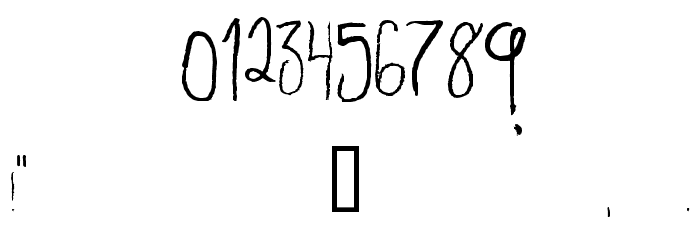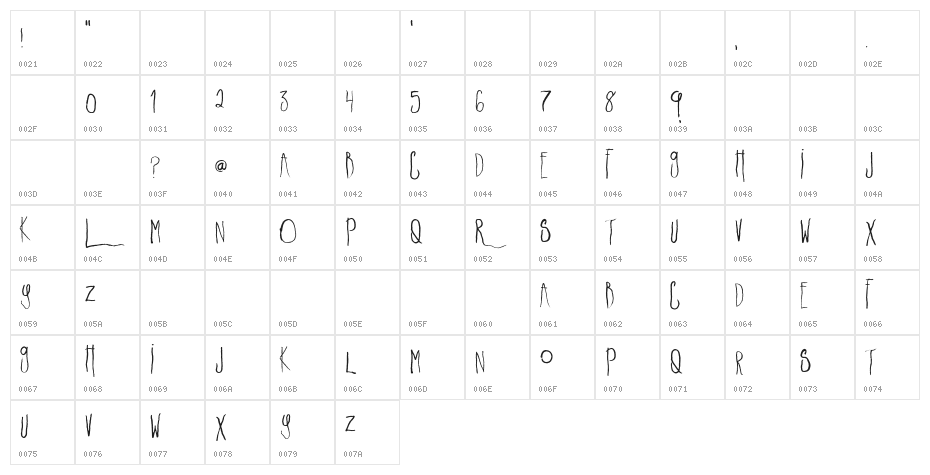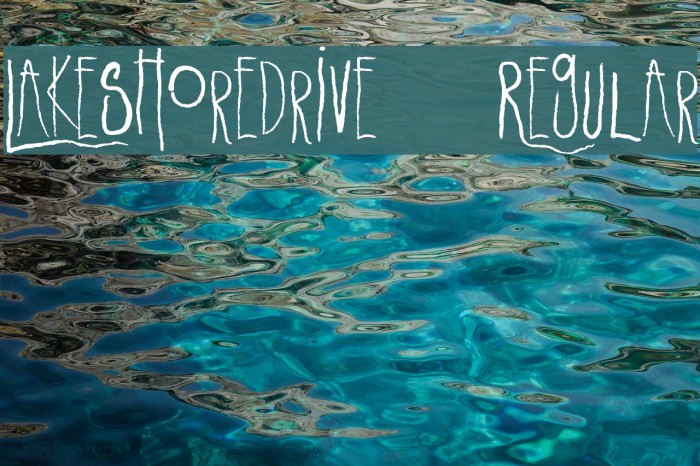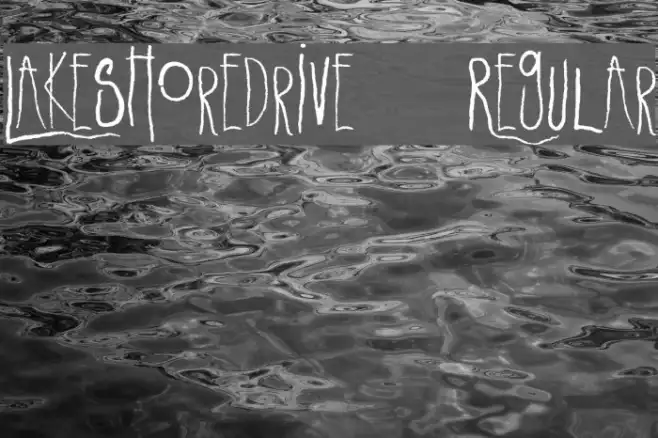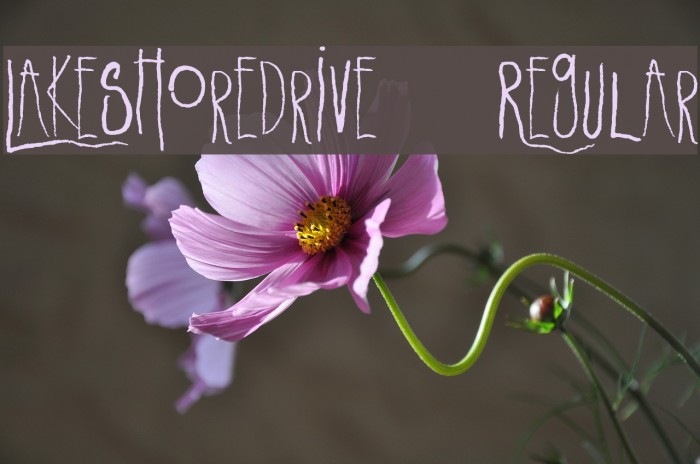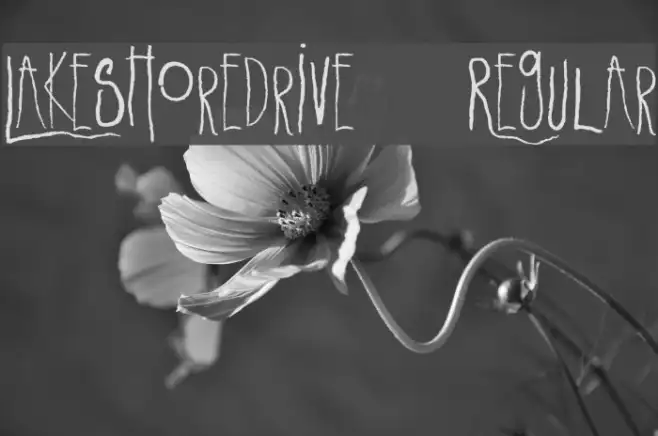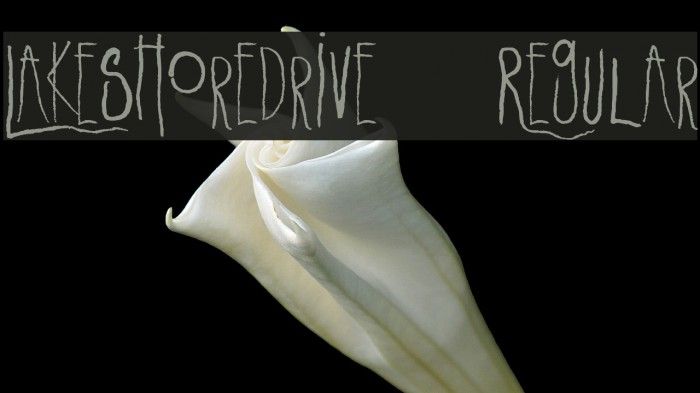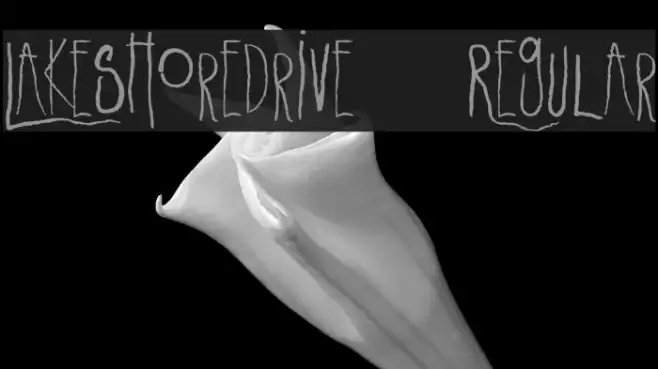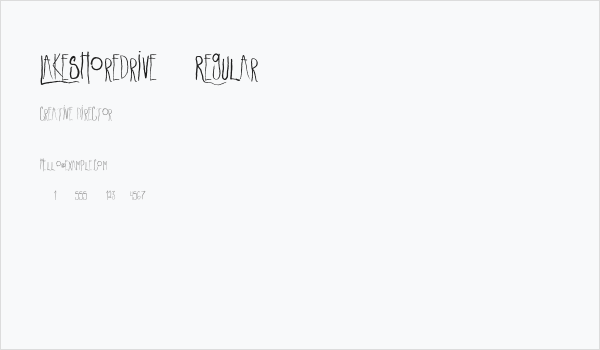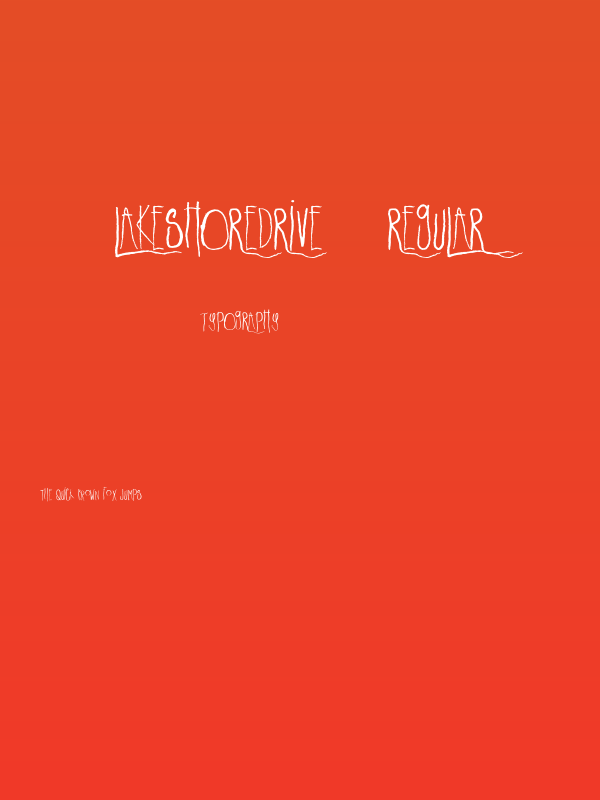
LakeshoreDrive-Regular Font
LakeshoreDrive-Regular Description
This font features a unique, hand-drawn style with an organic and slightly irregular appearance. The characters are elongated and thin, with a whimsical and artistic flair. The uppercase and lowercase letters maintain a consistent style, while the numbers and special characters complement the overall design. The strokes vary in thickness, adding to the font's dynamic and lively feel. This font is ideal for projects that require a creative and informal touch, such as artistic posters, invitations, or branding for creative industries.
| Overall Style | Artistic |
| Use Case | Logos, Posters, Invitations |
| Proposed Projects | Ideal for artistic posters, creative invitations, and branding for creative industries. |